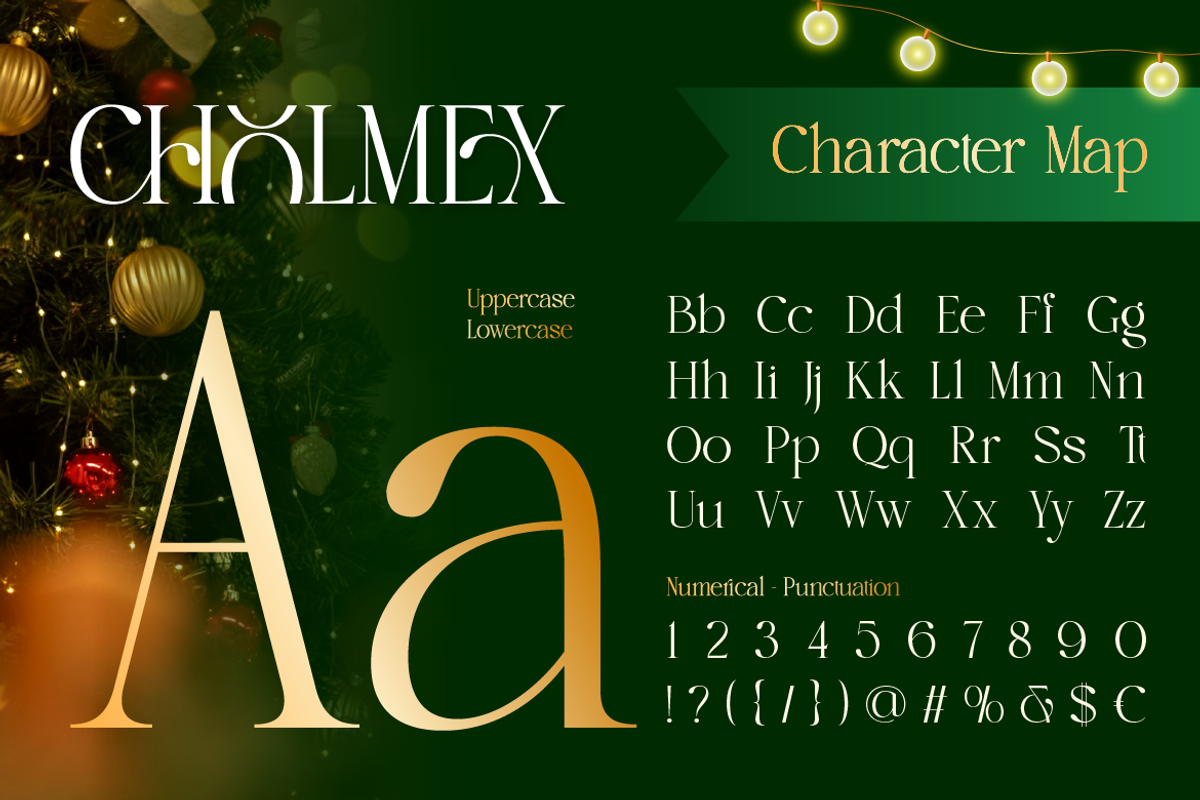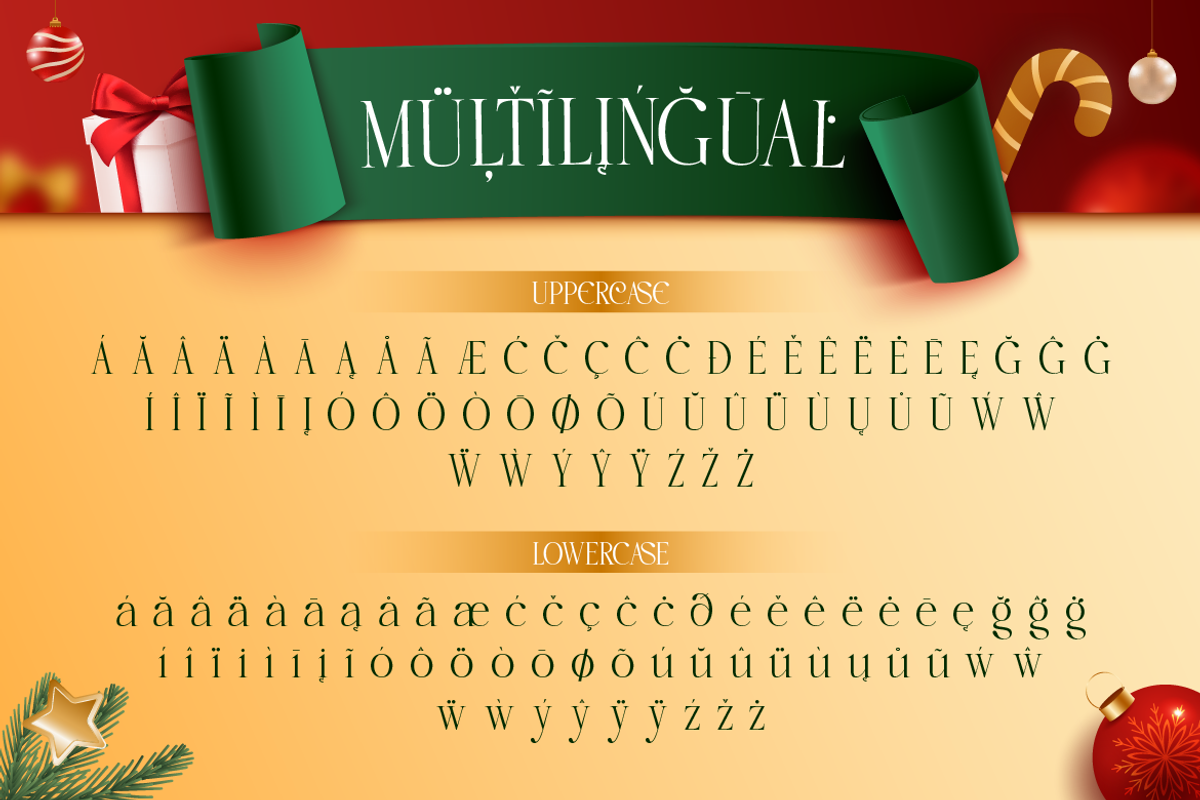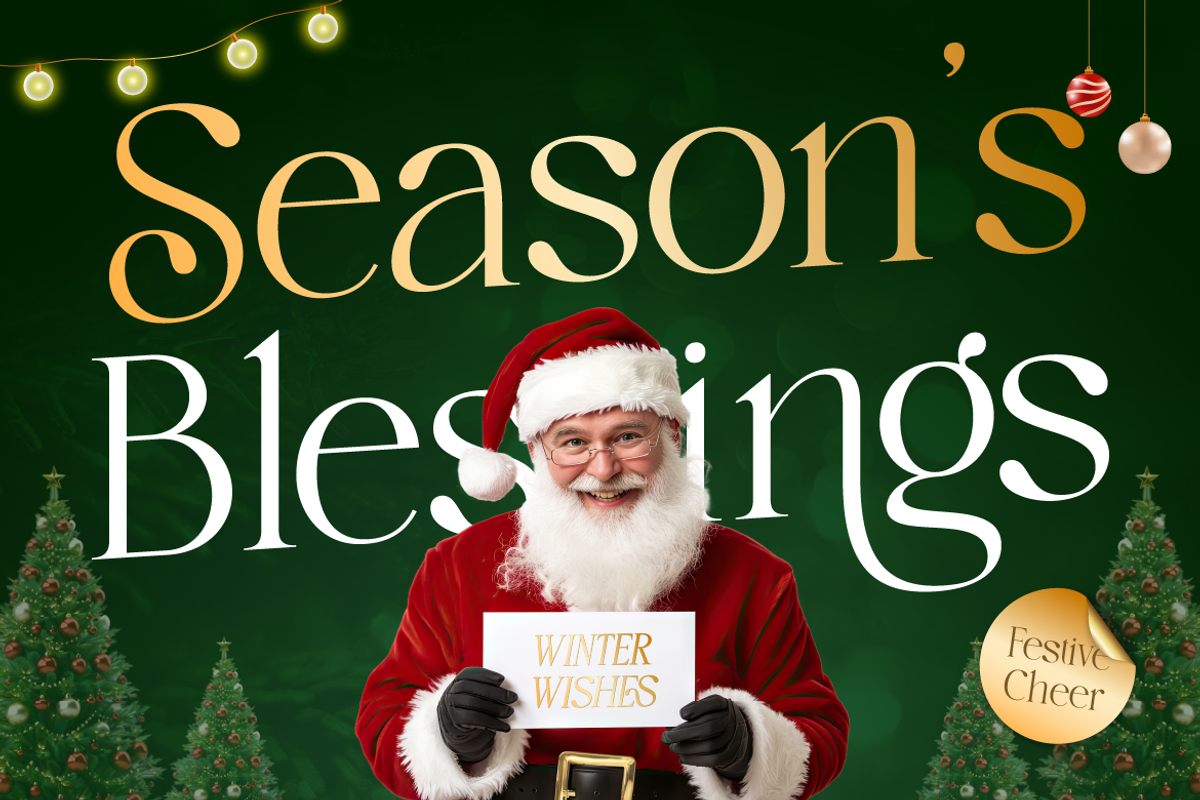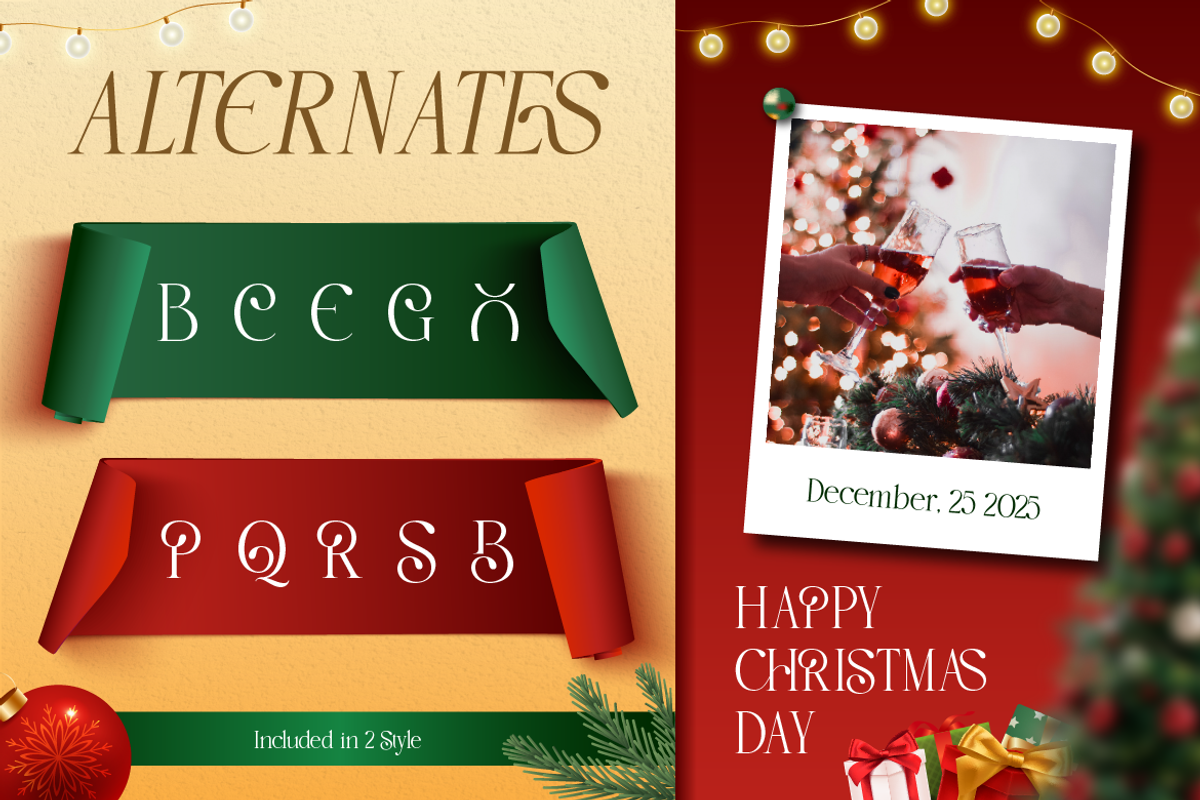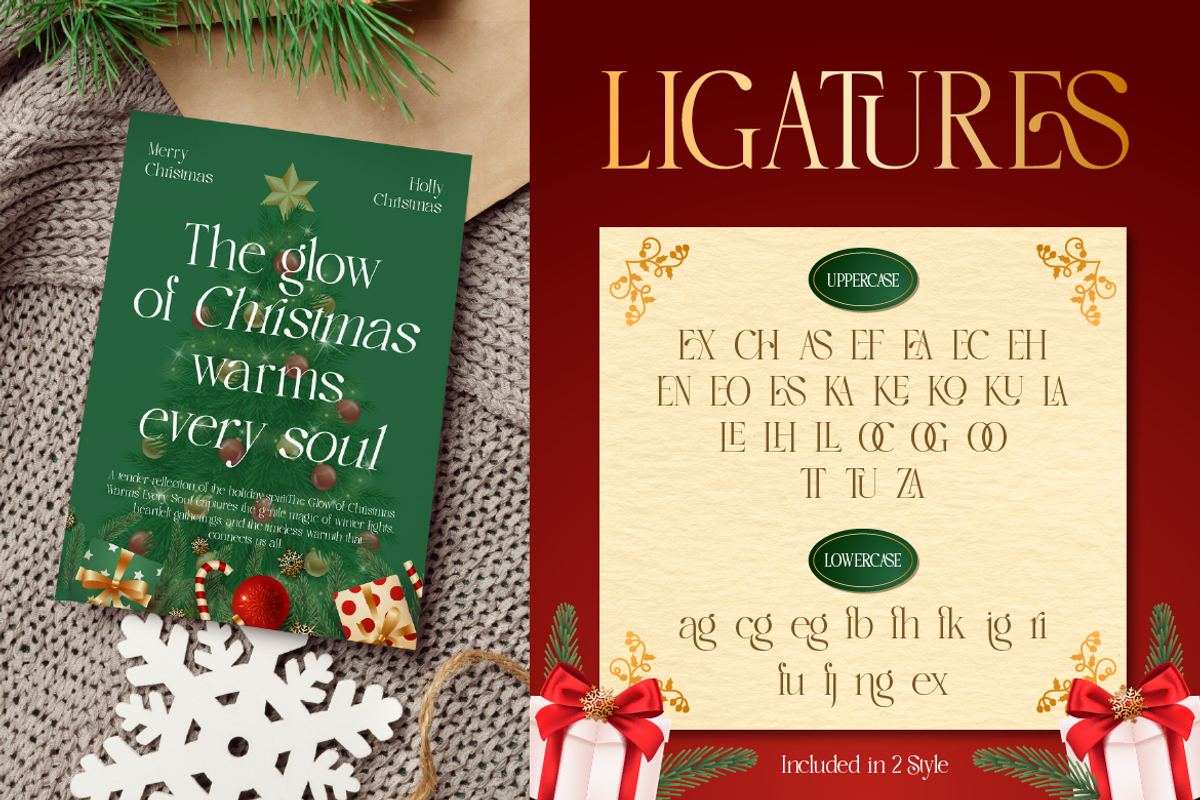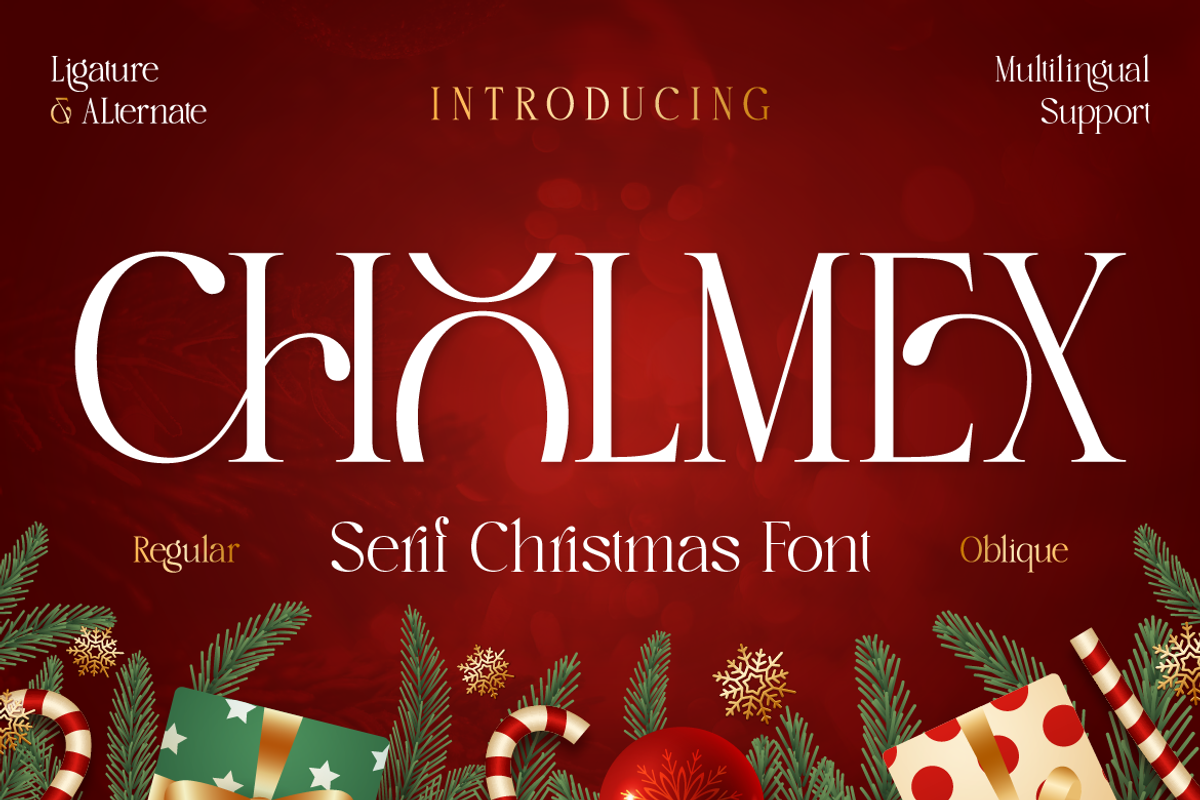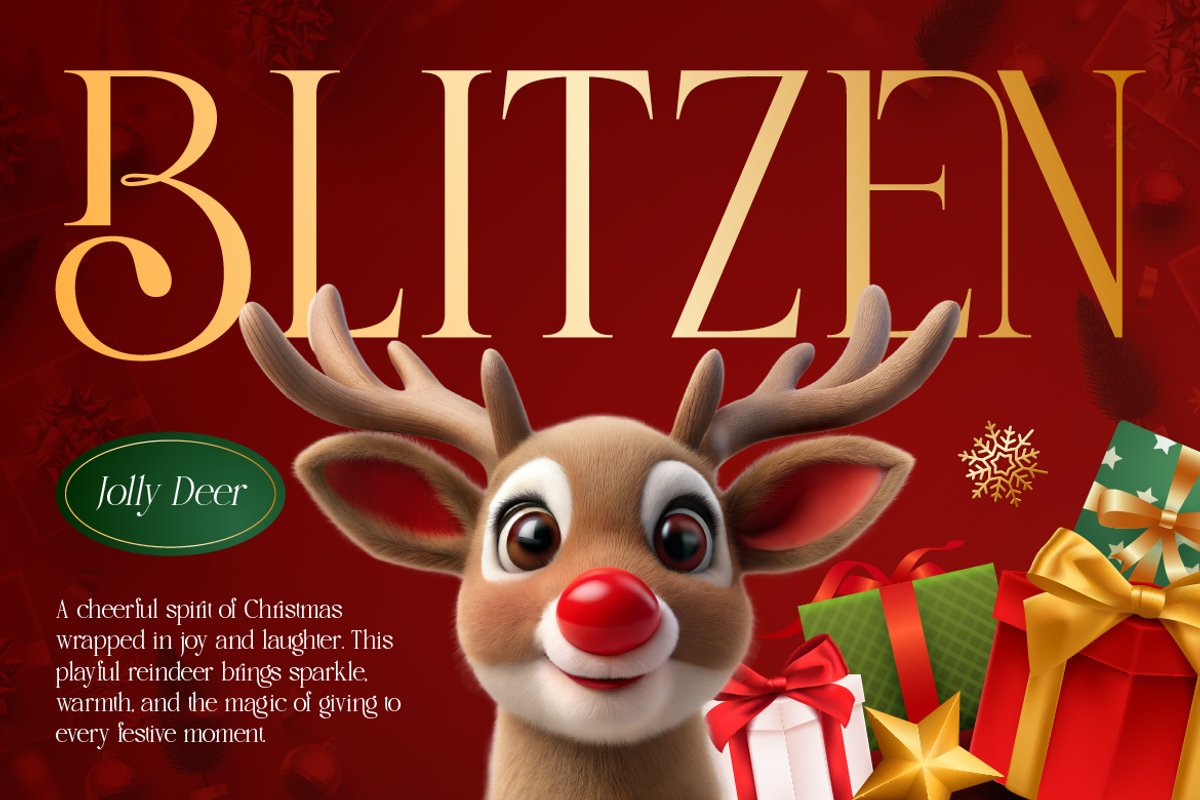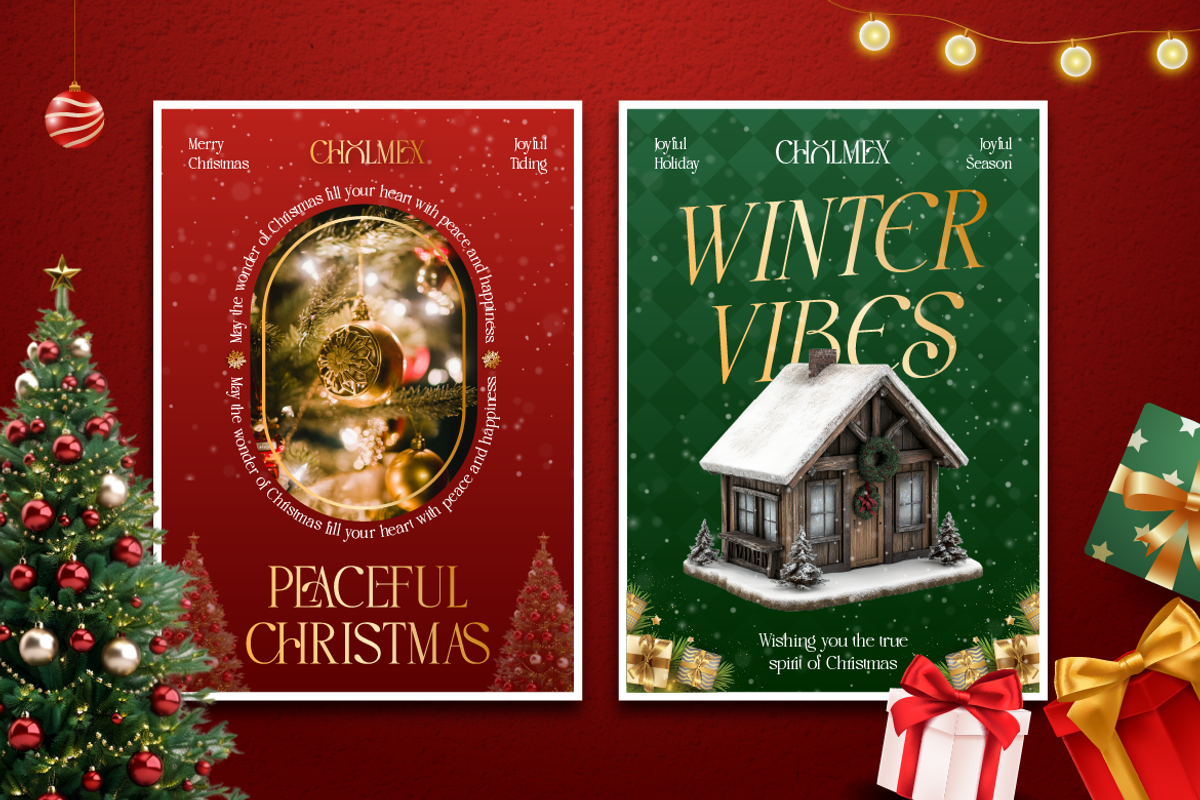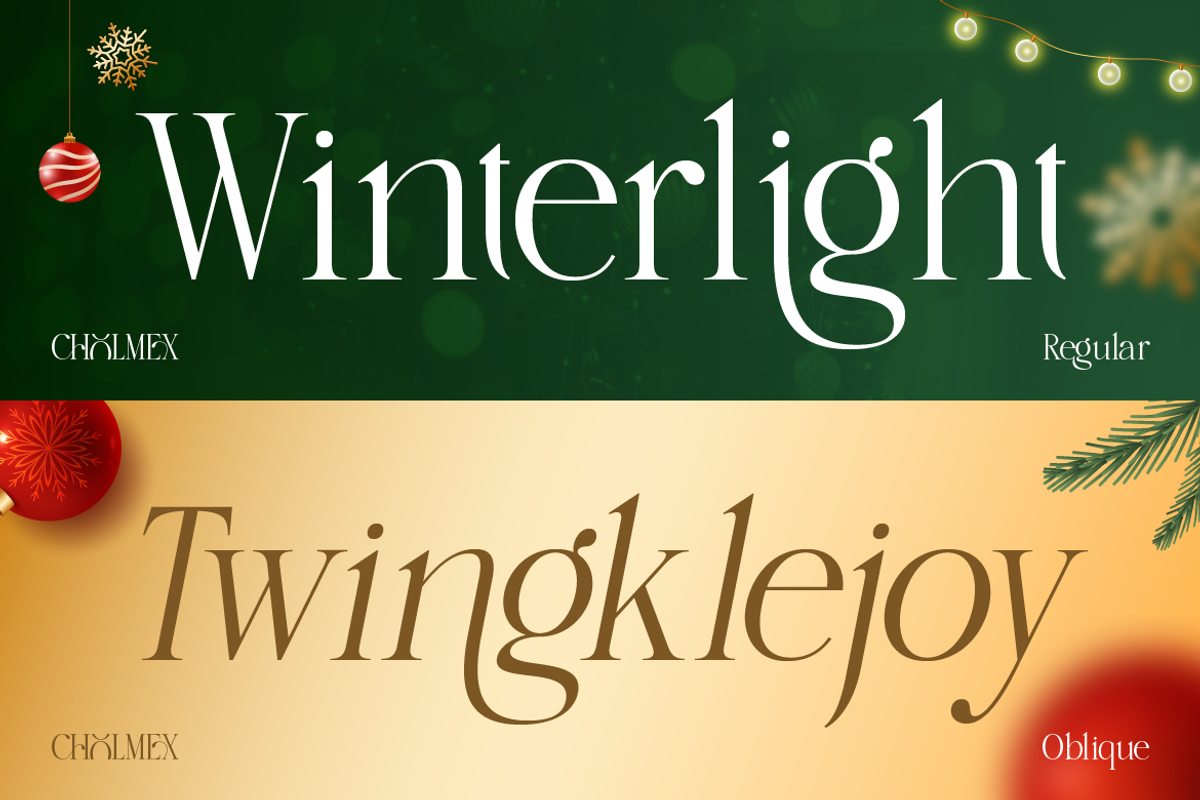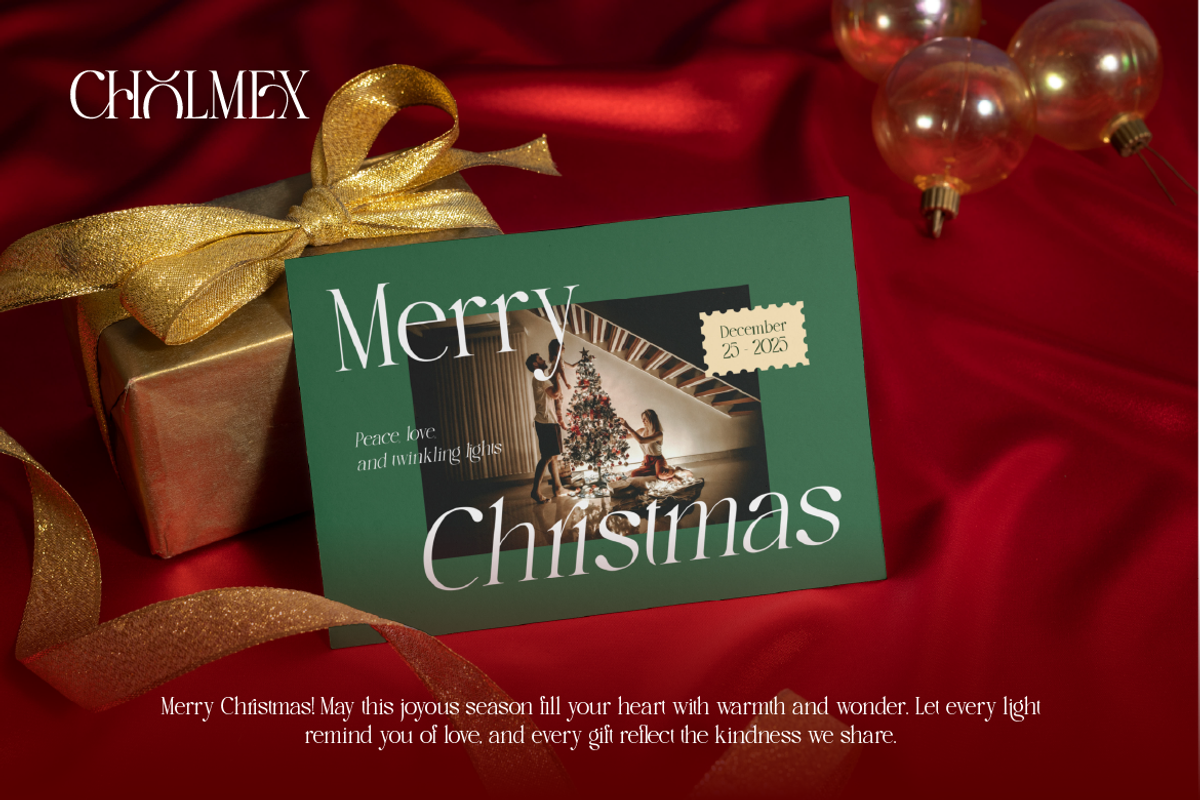
Cholmex
Enrich your holiday designs with Cholmex, the sophisticated Serif Christmas Font that brings instant elegance and festive cheer. Cholmex is more than just a typeface; it’s the perfect touch of seasonal luxury for all your creative projects. Its classic serif structure is beautifully accented with subtle, ornate details, making it ideal for everything from formal invitations to cozy greeting cards. Whether you're crafting titles or adding a playful sparkle, Cholmex is the essential ingredient for stunning holiday typography.
A - Z set (Uppercase & Lowercase)
Number